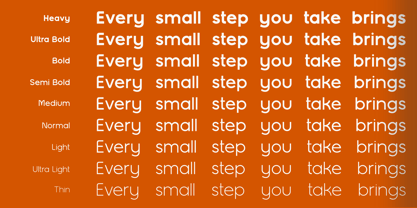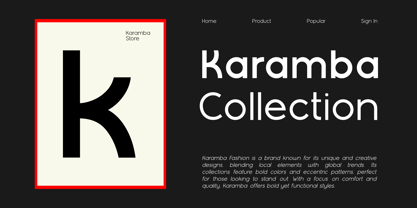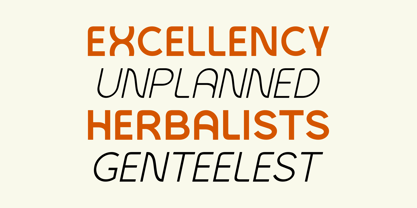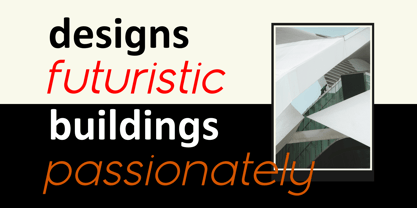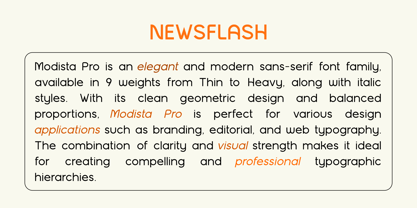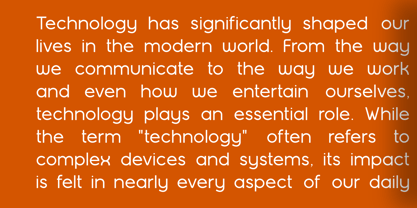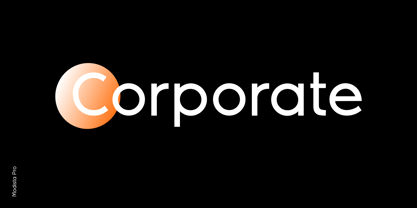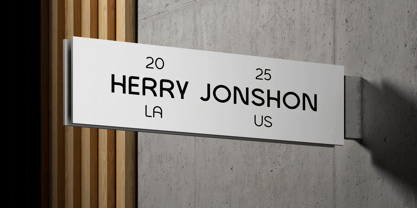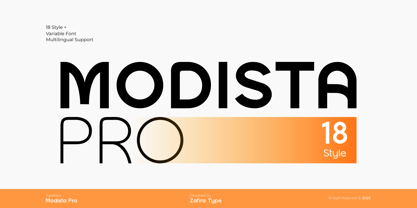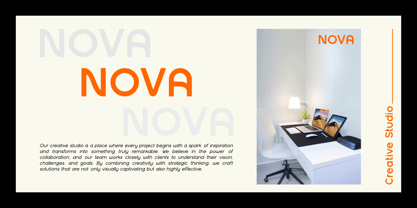
Modista Pro
by Zafira Type
The Modista Pro Font Family was designed by Su Hirno and published by Zafira Type. Modista Pro contains 20 styles and family package options. More about this family
Modista Pro is an elegant and modern sans-serif font family, available in 9 weights from Thin to Heavy, along with italic styles. With its clean geometric design and balanced proportions, Modista Pro is perfect for various design applications such as branding, editorial, and web typography. The combination of clarity and visual strength makes it ideal for creating compelling and professional typographic hierarchies. Additionally, Modista Pro is available as a variable font, allowing for seamless weight and style adjustments, providing even greater flexibility for designers to fine-tune their typographic choices.
Designers: Su Hirno
Foundry: Zafira Type